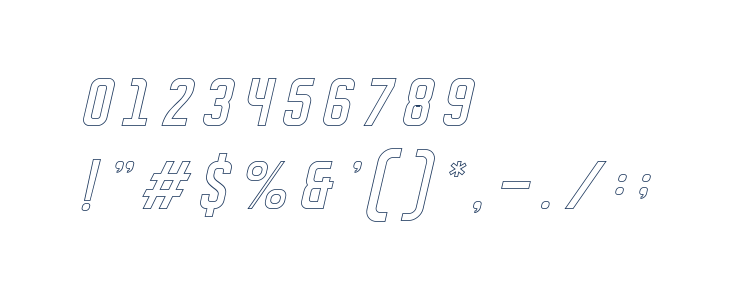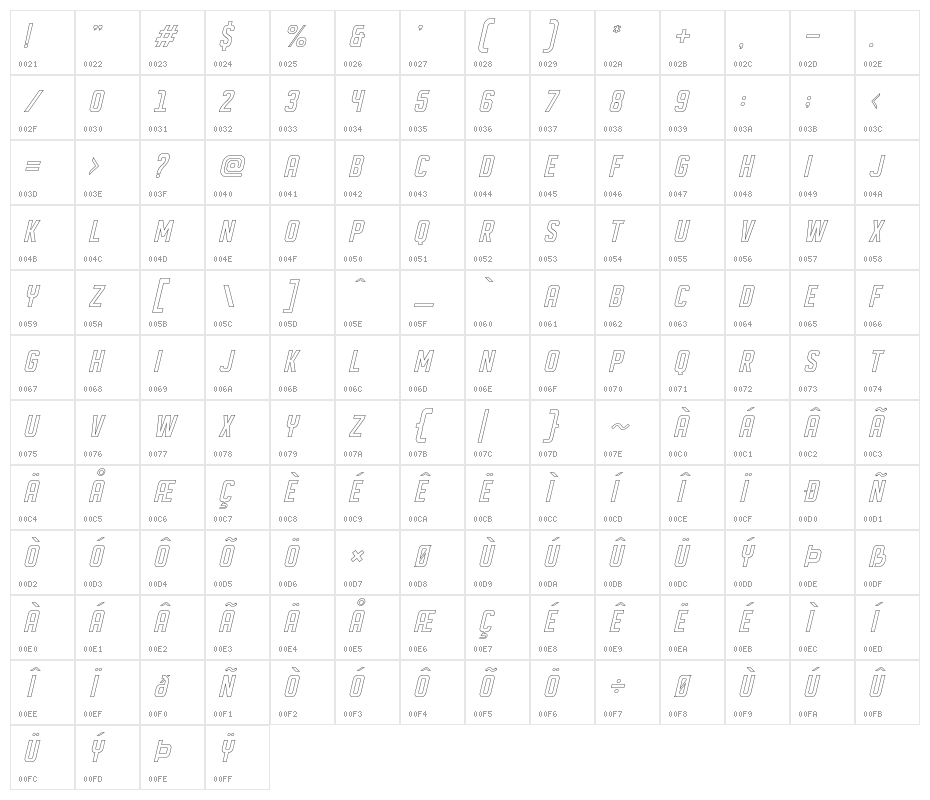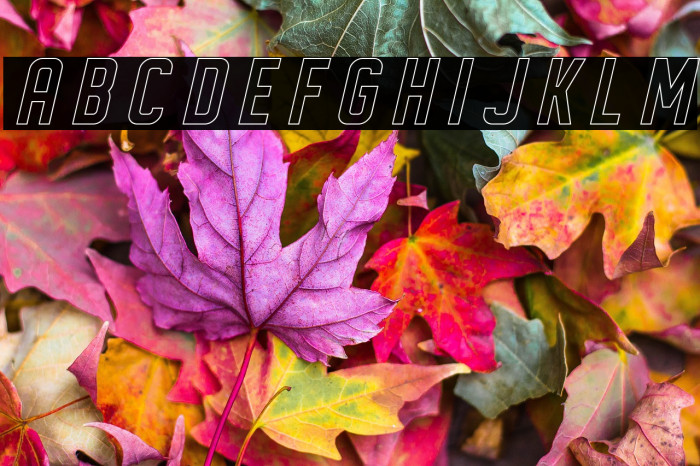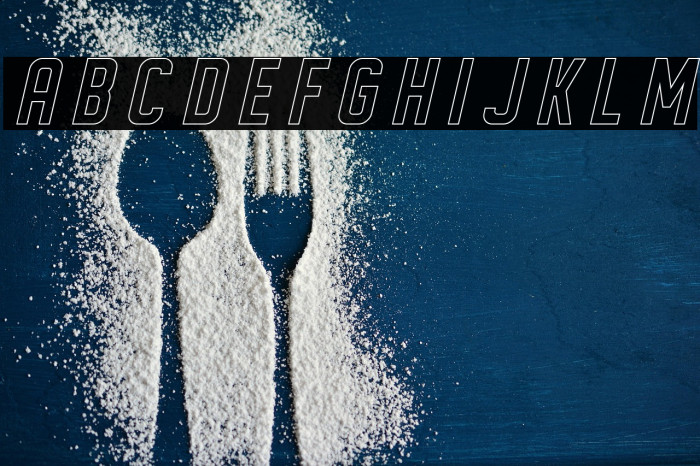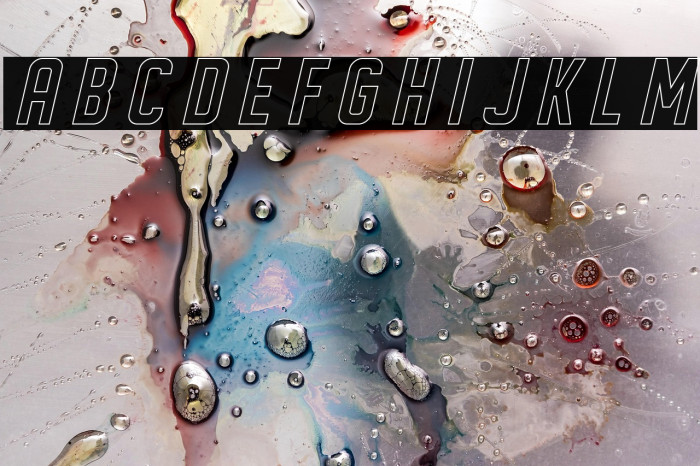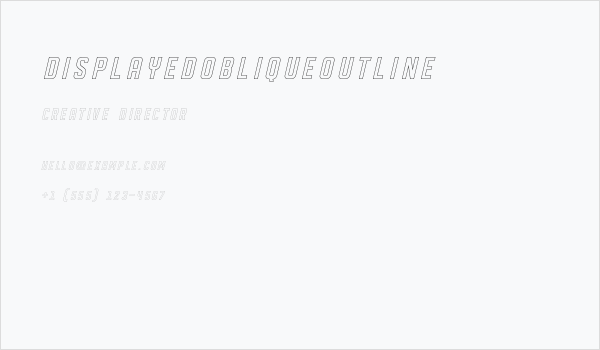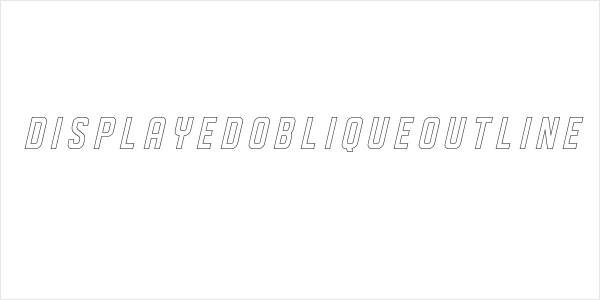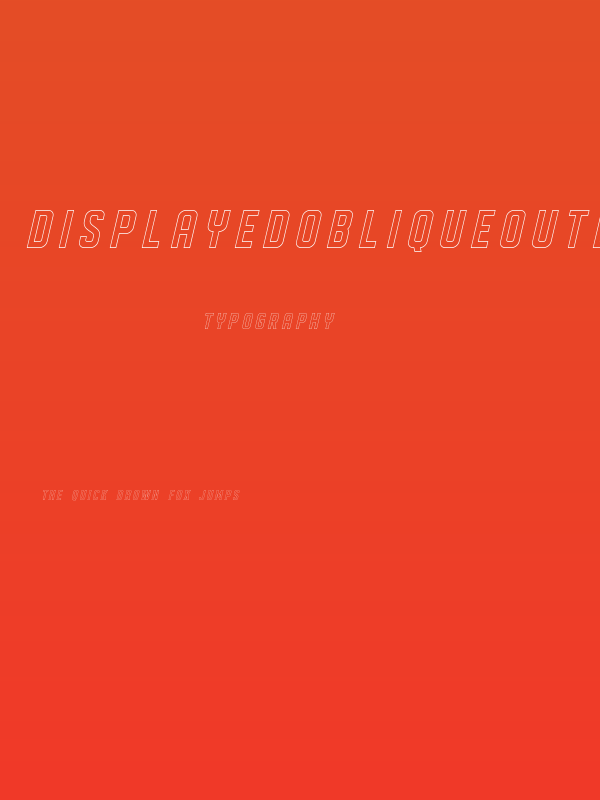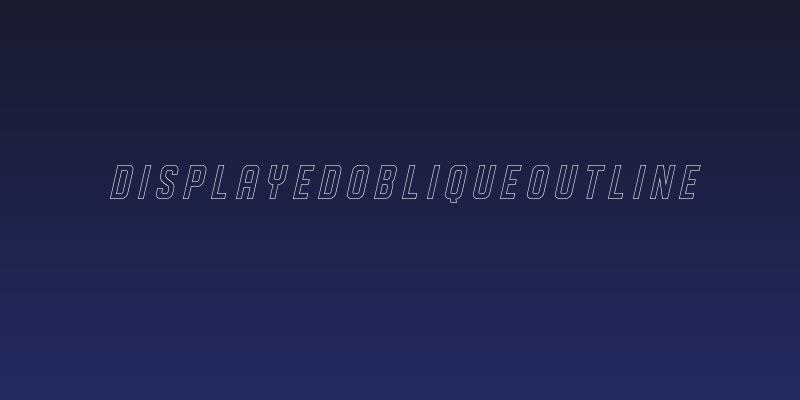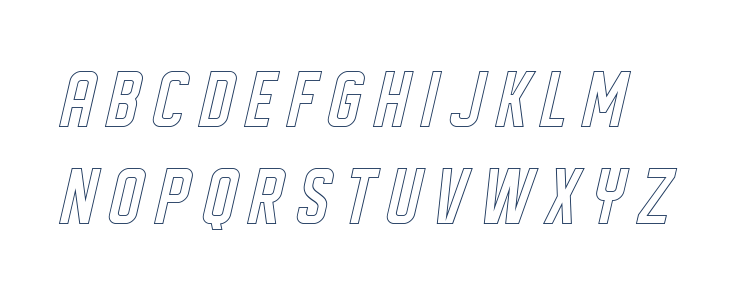
DISPLAYEDObliqueoutline Font
DISPLAYEDObliqueoutline Description
This font features an oblique, outlined style that gives it a modern and dynamic appearance. The characters are uppercase and lowercase alphabets, along with numbers and a variety of special symbols. Each letter is designed with a consistent slant, creating a sense of motion and energy. The outline effect adds a layer of depth, making the characters stand out without being overly bold. This font is ideal for projects that require a contemporary and edgy look, such as sports branding, modern advertising, or digital media. Its clean lines and structured form make it versatile for various design applications.
| Proposed Projects | Ideal for sports branding, modern advertising, digital media, and edgy design projects. |